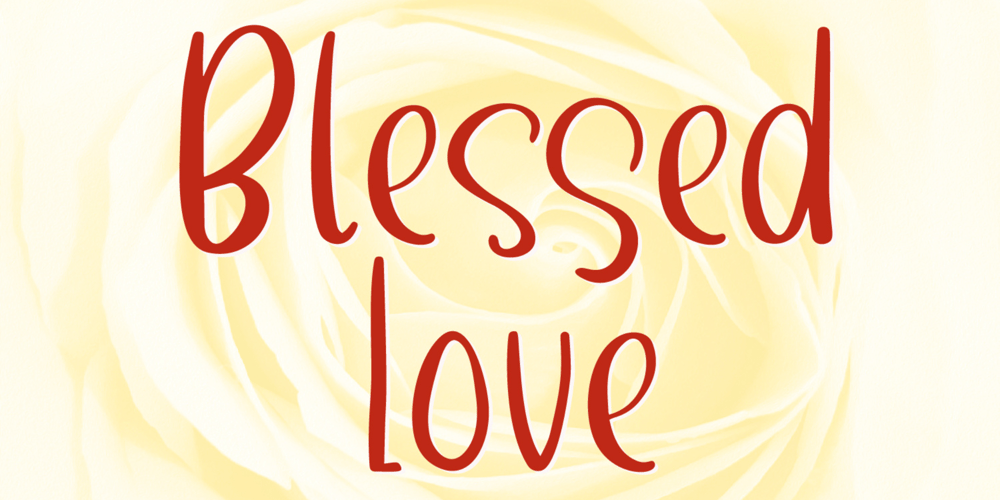
Blessed Love Font Family was designed by Irpan Maulana and published by Create Big Supply. Blessed Love contains 1 styles and family package options. With its unique style, Blessed Love brings a touch of elegance and charm to your designs, regardless of the topic or purpose. Whether you’re working on branding, invitations, posters, or any other creative endeavor, this font has the potential to elevate your creations and leave a lasting impression.Blessed Love features both uppercase and lowercase letterforms, offering versatility and allowing you to experiment with various typographic compositions. Complete with numbers, punctuation marks, and extensive multilingual support, this font ensures seamless integration into your design projects, catering to diverse audiences across the globe.One of the standout features of Blessed Love is its PUA Encoding, which provides easy access to special characters and glyphs. This empowers you to infuse your designs with unique flourishes and personalized touches, allowing your creativity to shine.Embrace the cool and friendly vibe of Blessed Love and unlock a world of design possibilities. With its extensive character set and exceptional versatility, this font is ready to enhance your projects and create a memorable visual experience.